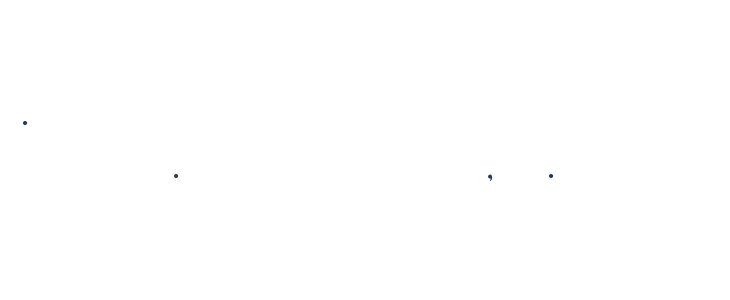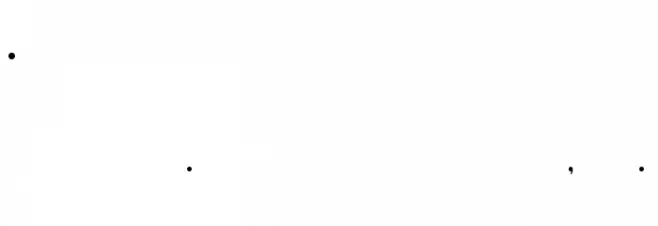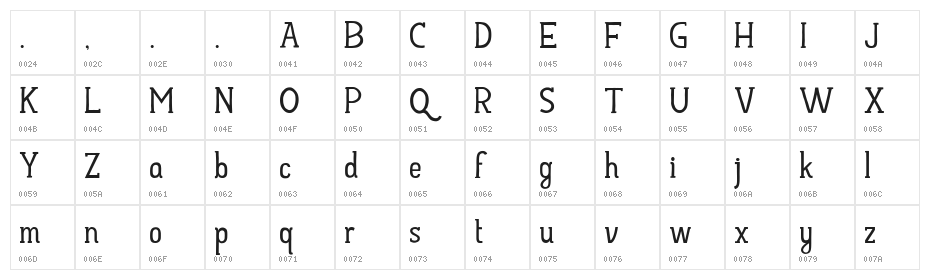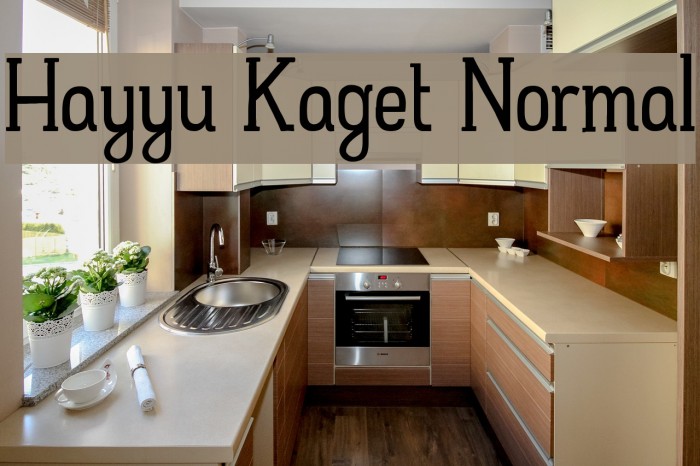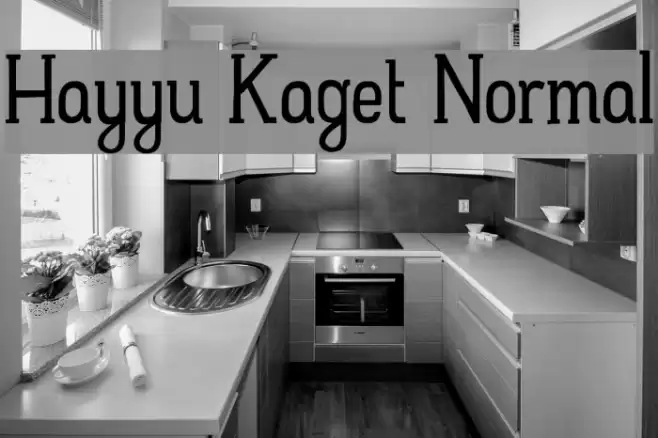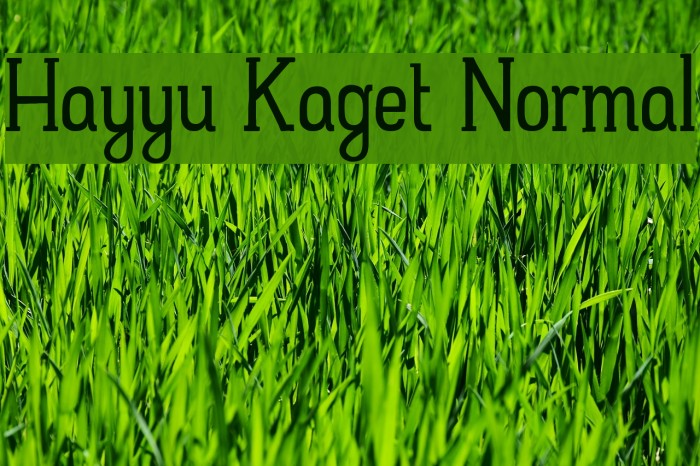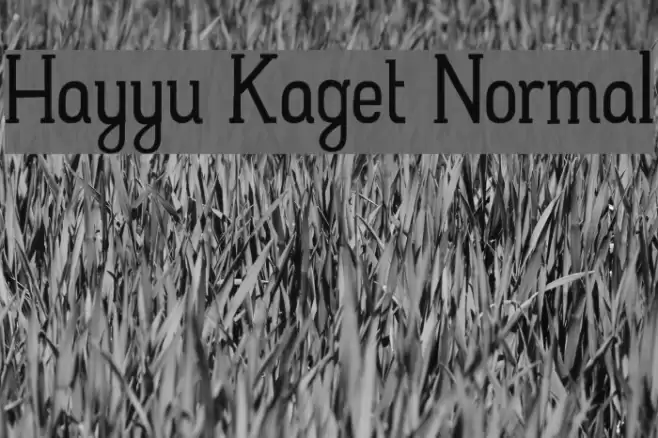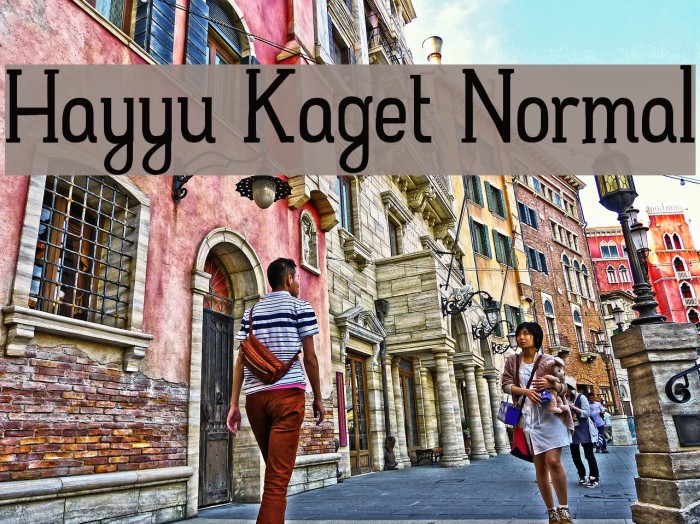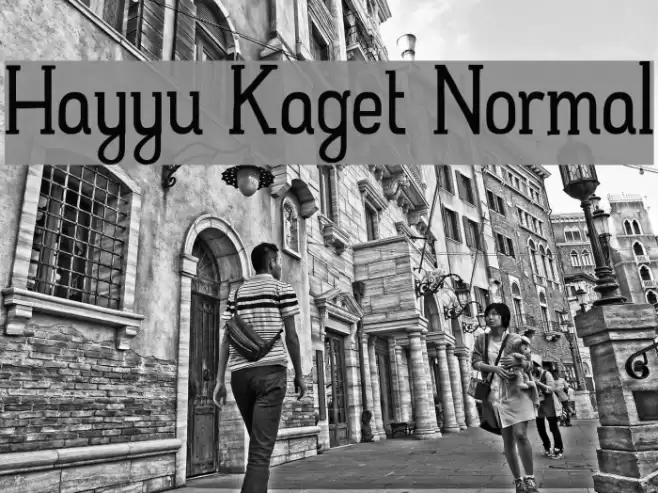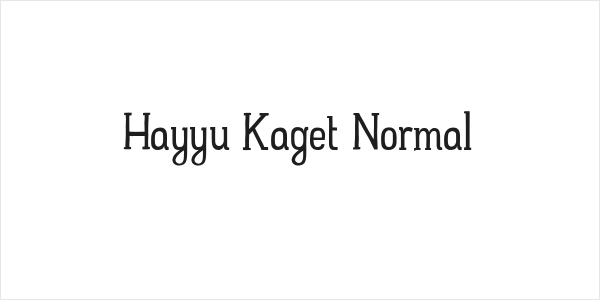
Hayyu Kaget Normal Font
Hayyu Kaget Normal Description
This font features a unique blend of modern and classic elements, characterized by its distinct serif style. The uppercase letters are bold and commanding, with sharp, angular serifs that give a sense of authority and elegance. The lowercase letters maintain a consistent style, offering a harmonious balance with the uppercase set. The numerals are clear and legible, making them suitable for various applications. Special characters are thoughtfully designed, maintaining the overall aesthetic of the font. The design is versatile, making it suitable for both digital and print media.
| Use Case | Headlines, Logos, Editorial design |
| Proposed Projects | Ideal for branding, editorial design, book covers, and formal invitations. |